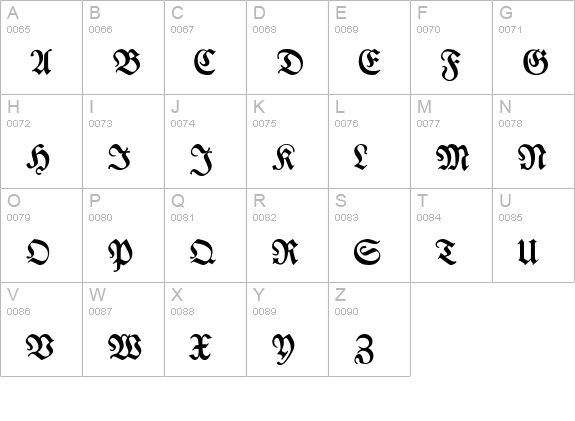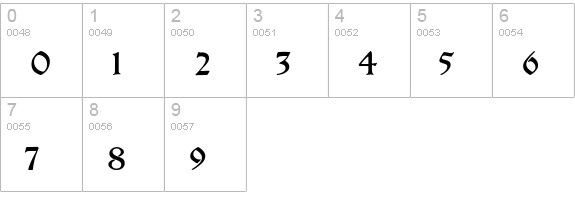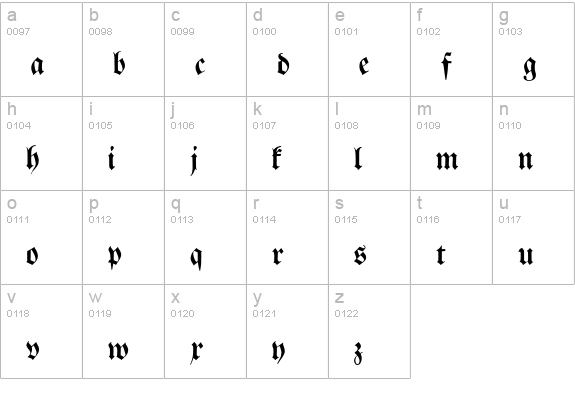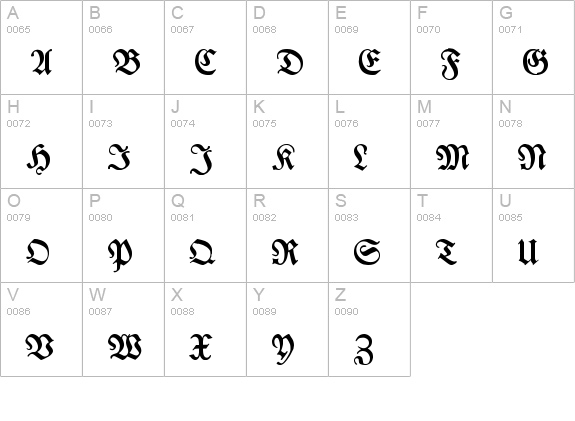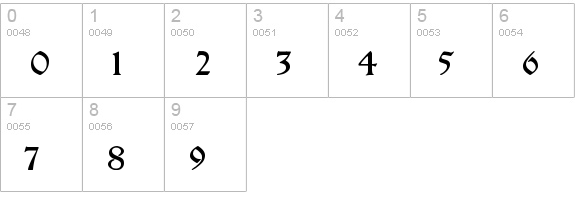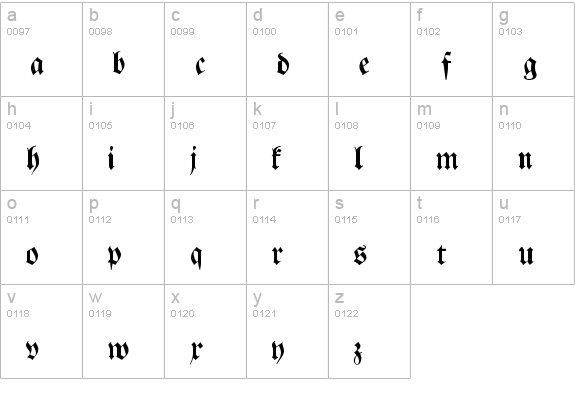
Breitkopf Fraktur Font Details
Breitkopf Fraktur is a stunningly beautiful font that captures the essence of traditional German blackletter typography. With its intricate details and elegant curves, this font is a true homage to the rich heritage of Fraktur typefaces. The distinctiveness of Breitkopf Fraktur lies in its ornate letterforms, featuring sharp angles and intricate serifs that give each character a unique and captivating appearance. The carefully crafted design of this font exudes a sense of sophistication and refinement, making it perfect for projects that require a touch of vintage charm. One of the greatest advantages of Breitkopf Fraktur is that it is freely available to download at FontsMarket.com. This means that designers, typographers, and enthusiasts alike can easily access and utilize this remarkable font without any restrictions. Whether you are working on a historical publication, a branding project, or simply want to add a touch of elegance to your designs, Breitkopf Fraktur will undoubtedly leave a lasting impression. Its timeless beauty and versatility make it an ideal choice for a wide range of applications, from posters and invitations to logos and book covers. Breitkopf Fraktur font is not only visually stunning but also incredibly legible. Each letter is meticulously designed to ensure optimal readability, even at small sizes. This makes it a practical choice for both print and digital media, ensuring that your message will be effectively communicated to your audience. With Breitkopf Fraktur, you not only get a remarkable font but also a piece of history. Embrace the beauty and elegance of traditional German blackletter typography with this captivating typeface, freely available to download at FontsMarket.com. Let Breitkopf Fraktur elevate your designs and transport your readers to a world of timeless sophistication.